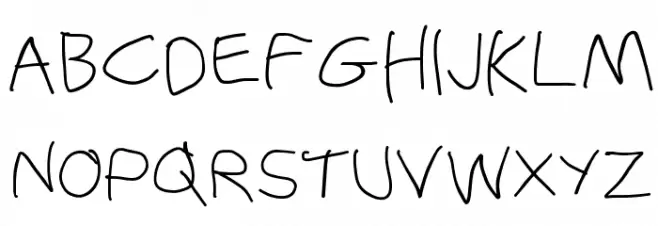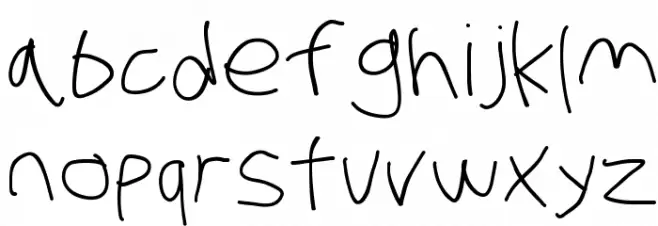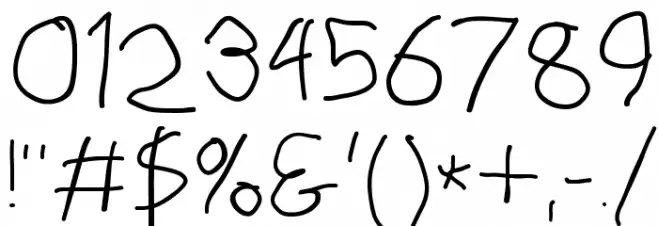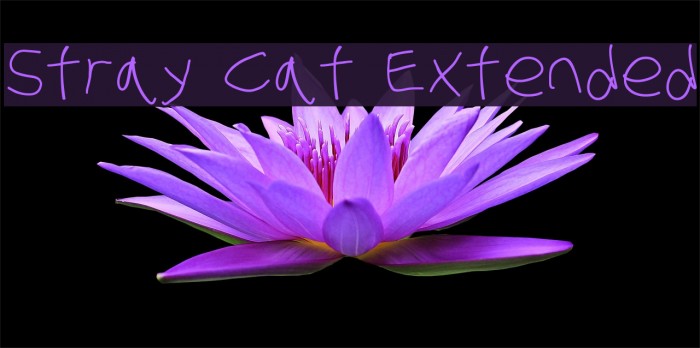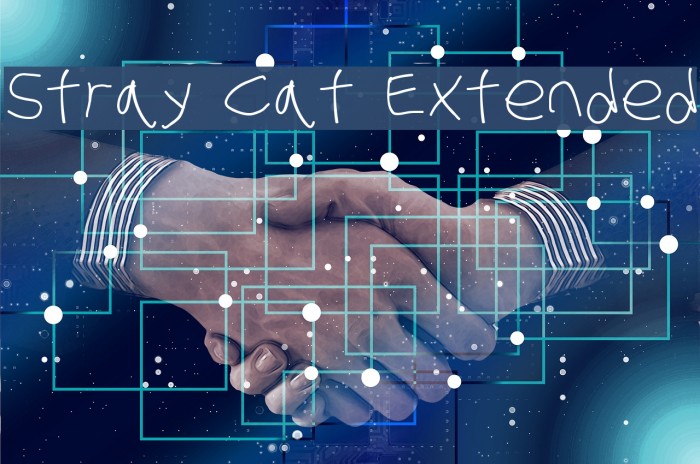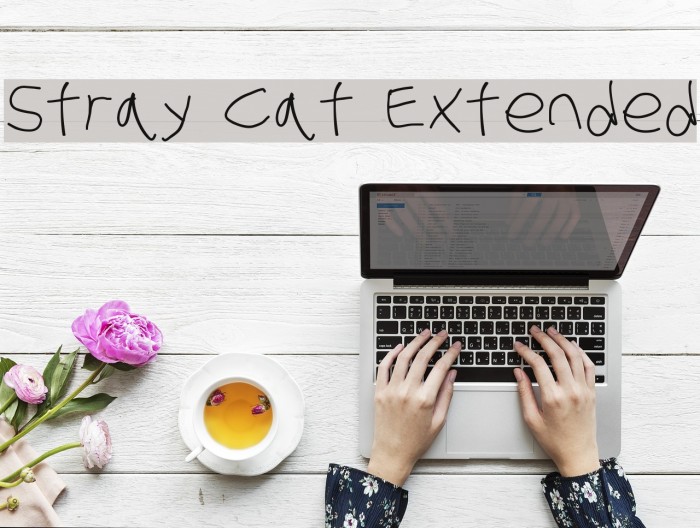
Stray Cat Extended
This font exudes a playful and casual handwritten style, characterized by its irregular and slightly whimsical letterforms. Each character appears as if it were drawn with a marker, giving it a personal and informal touch. The strokes are uneven, adding to the font's charm and uniqueness. The uppercase and lowercase letters maintain a consistent style, with rounded edges and a slight slant, enhancing the handwritten feel. Numbers and special characters follow the same aesthetic, ensuring a cohesive look across all glyphs. This font is perfect for projects that require a personal, friendly, and approachable vibe.
A playful, handwritten font with irregular, marker-like strokes.
- Proposed Projects: Ideal for greeting cards, children's books, casual branding, and social media graphics.
- Overall Style: Casual
- Use Case: Headlines, Informal text, Creative projects